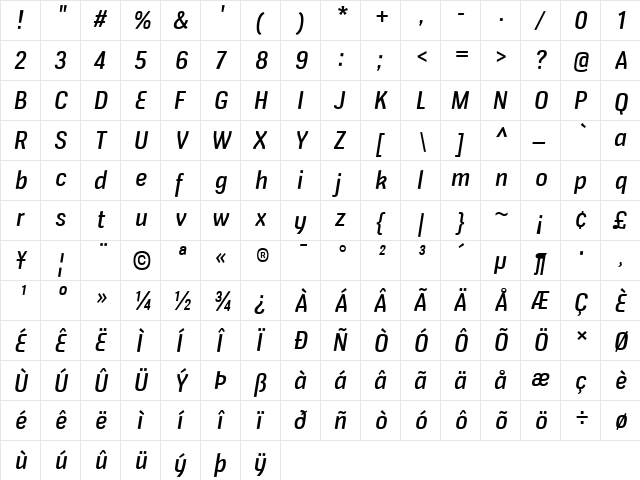
Veriox Italic
Design Context for Veriox Typeface
Veriox is a composed and adaptable typeface that performs quietly and consistently across a wide range of design contexts. The dynamic lean of this cut emphasises speed and emphasis in any layout.
Pro Tip: Use Veriox for emphasis, pull quotes, and subheadings where its slanted energy can add rhythm to the layout.